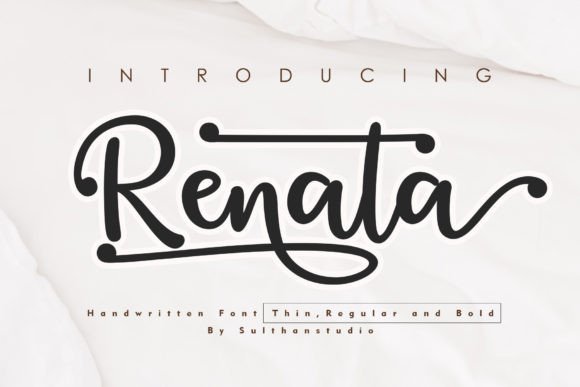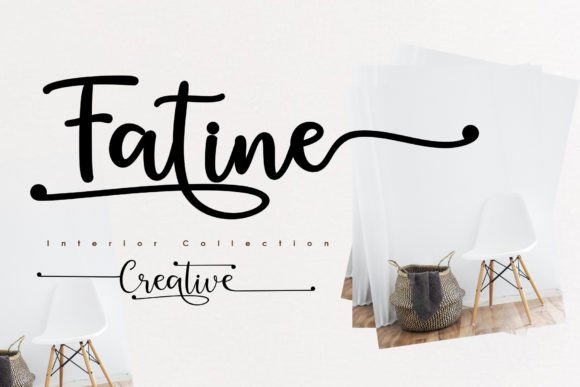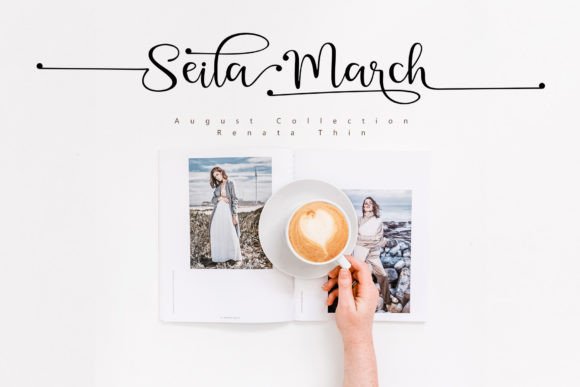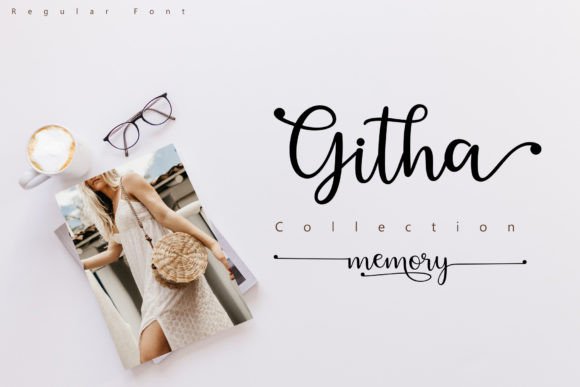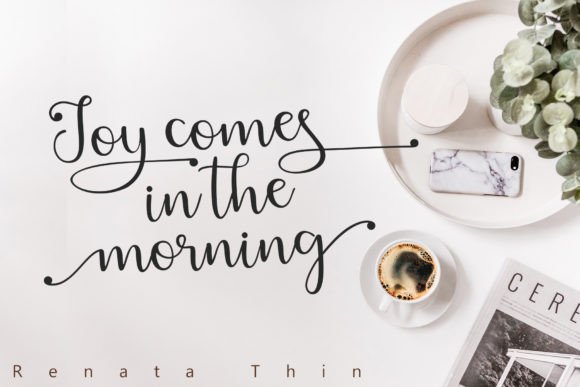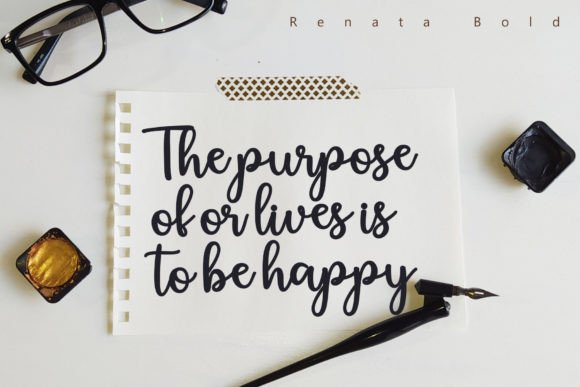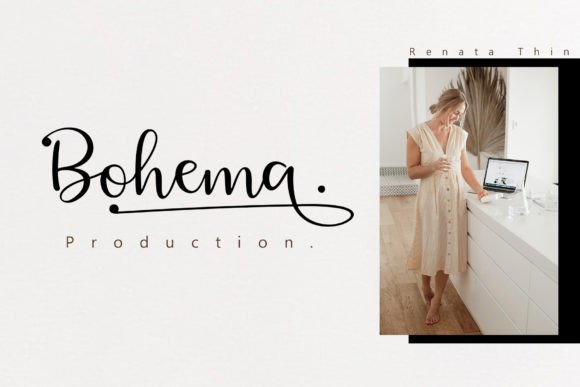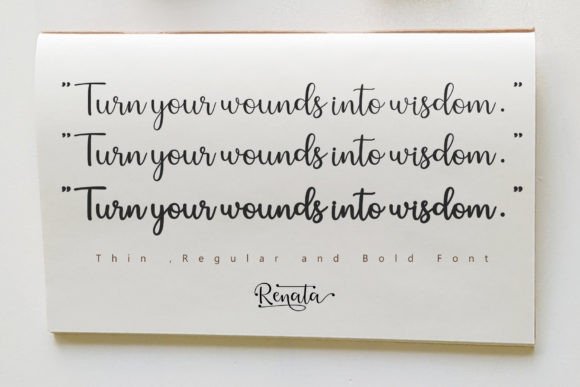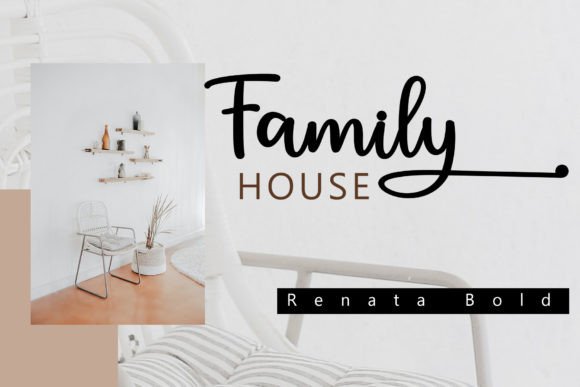
Renata Font
“Renata” is a beautiful handwritten font that offers versatility through its three distinct styles and a variety of different strokes. This font is a valuable asset for craftsmen and designers who require a consistent yet adaptable typeface for various purposes, including logos, wedding stationery, cards, gift designs, photography, watermarks, product packaging, and handwritten quotes.
The charm of “Renata” lies in its ability to provide a harmonious and consistent look across different design projects while offering creative flexibility. The font offers three unique styles that can be seamlessly integrated into your work, ensuring that your branding or design projects maintain a cohesive and distinctive aesthetic.
Whether you need an elegant and flowing script for wedding stationery, a casual and friendly style for cards, or a bold and eye-catching font for product packaging, “Renata” has you covered. Its versatile strokes and styles allow you to adapt the font to various contexts and themes.
For branding, invitations, cards, product packaging, and a wide range of design applications, “Renata” offers the convenience of using the same font with different styles to suit your needs. This versatility simplifies the creative process and ensures that your designs consistently deliver a polished and visually appealing look.
In summary, “Renata” is a valuable font for designers who require flexibility and consistency across their projects. Its three beautiful styles and adaptable strokes make it suitable for a variety of applications, and its ability to maintain a cohesive look while accommodating different design purposes sets it apart. With “Renata” in your font collection, your design projects will benefit from both convenience and aesthetic appeal, leaving a lasting impression on your audience.